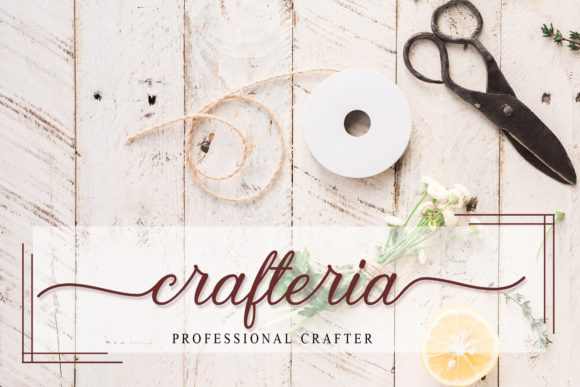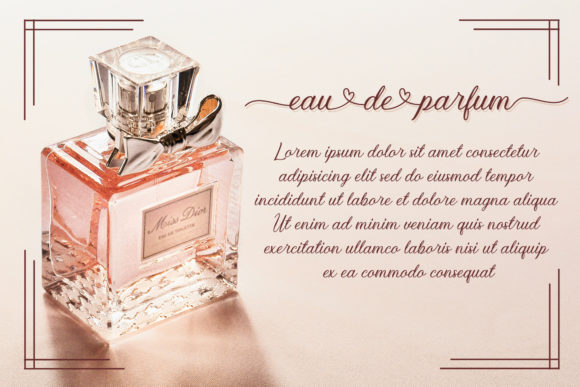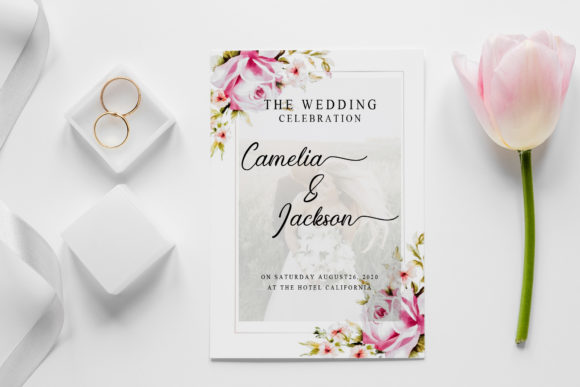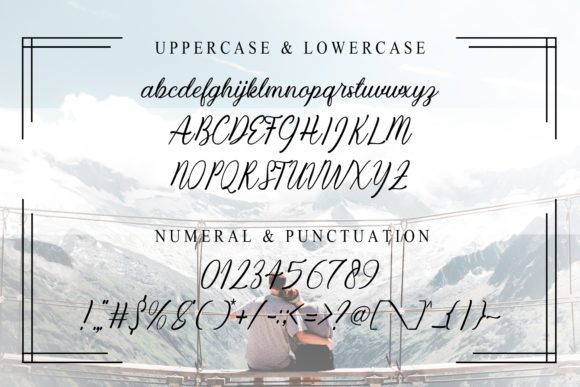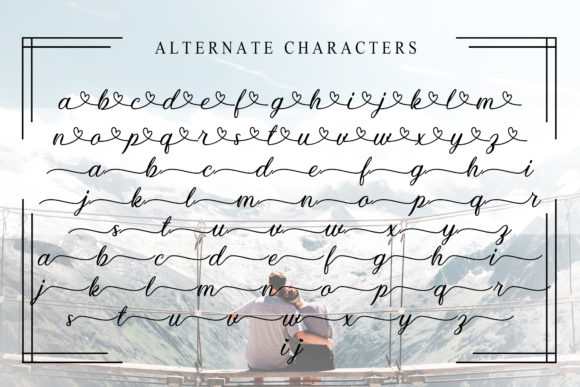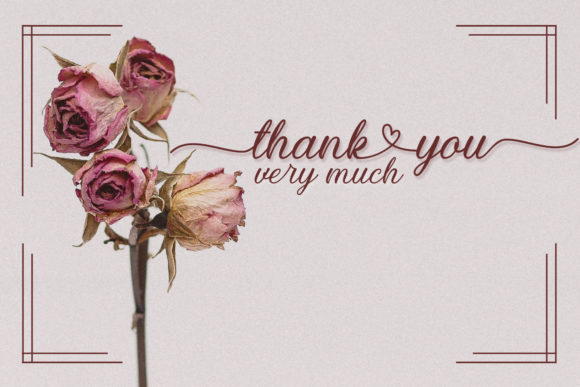
Kiara Akira Font
About Kiara Akira Font
Kiara Akira is a sweet, soft hand-lettered script font. The playful rounded characters make it the perfect font for creating stunning designs!